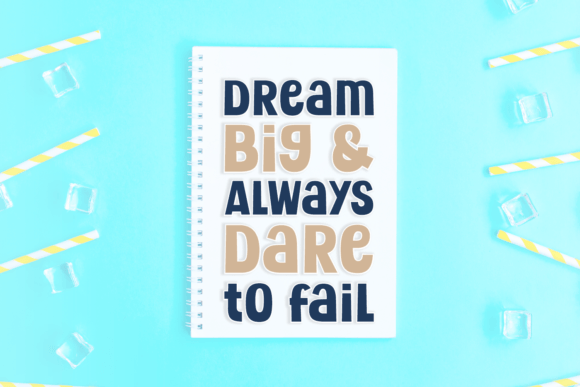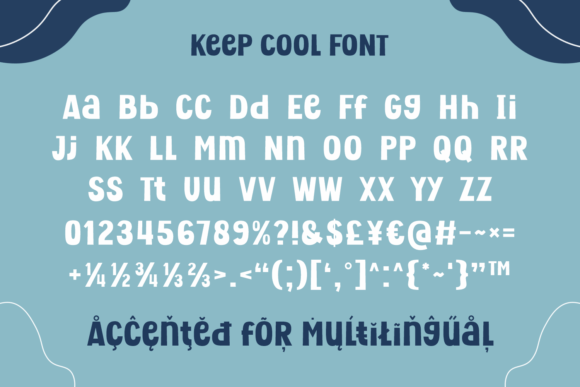
Introduction to Keep Cool Font Font
Fonts play a crucial role in design, and the Keep Cool Font font is a typeface that brings both character and versatility to any project. Whether you’re working on a branding project, a website, or a print design, the Keep Cool Font font offers a unique style that can elevate your work.
Keep Cool is a simple and clean display typeface thatβs perfect for creating designs with a modern and minimalist edge.
Its crisp and clear appearance is perfect for branding, advertising, and any project that demands a strong visual impact Get ready to make a statement with this versatile and elegant font.
Key Features of Keep Cool Font Font
Why Choose Keep Cool Font Font?
The Keep Cool Font font is more than just a typeface β it’s a design tool that helps you communicate your message with style and clarity. Its unique character set and versatile design make it suitable for a wide range of applications, from elegant invitations to bold headlines.
With its carefully crafted letterforms and balanced proportions, the Keep Cool Font font ensures readability and visual appeal across all mediums.
What makes Keep Cool Font font special?
The Keep Cool Font font stands out with its unique design, exceptional readability, and versatility across various design applications.